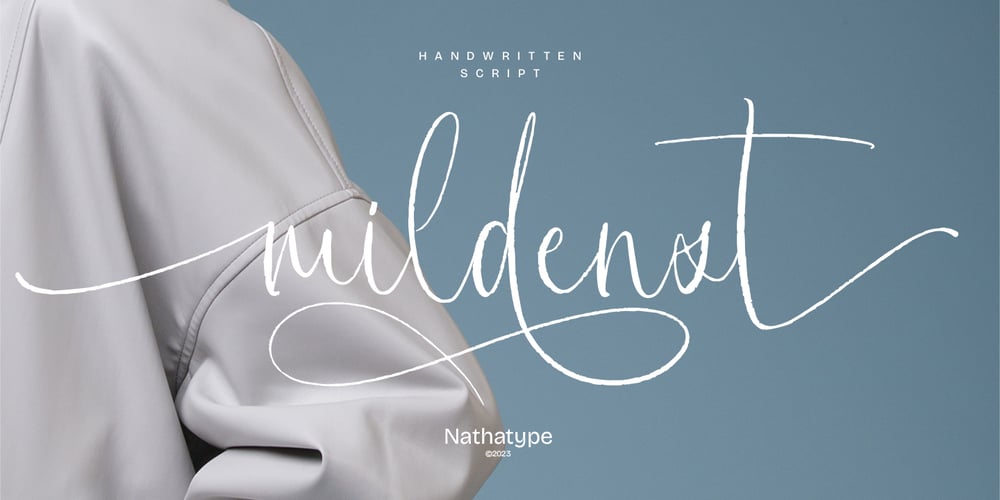
Mildenst Font Family was designed by Donis Miftahudin and published by Nathatype. Mildenst contains 1 styles and family package options. Mildenst is a script font that embodies the essence of flowing cursive handwriting. The subtle variation in line weight, combined with the delicate curves and loops, imbues the font with a natural appearance. The swinging letter details evoke the mesmerizing rhythm of handwritten strokes. The carefully balanced spacing ensures readability while preserving the authentic feel of cursive handwriting. In addition, you can enjoy the available features here.Features: Stylistic Sets Ligatures Multilingual Supports PUA Encoded Numerals and Punctuations Mildenst fits in headlines, logos, posters, flyers, invitations, name cards, branding materials, print media, editorial layouts, and many more. Find out more ways to use this font by taking a look at the font preview.